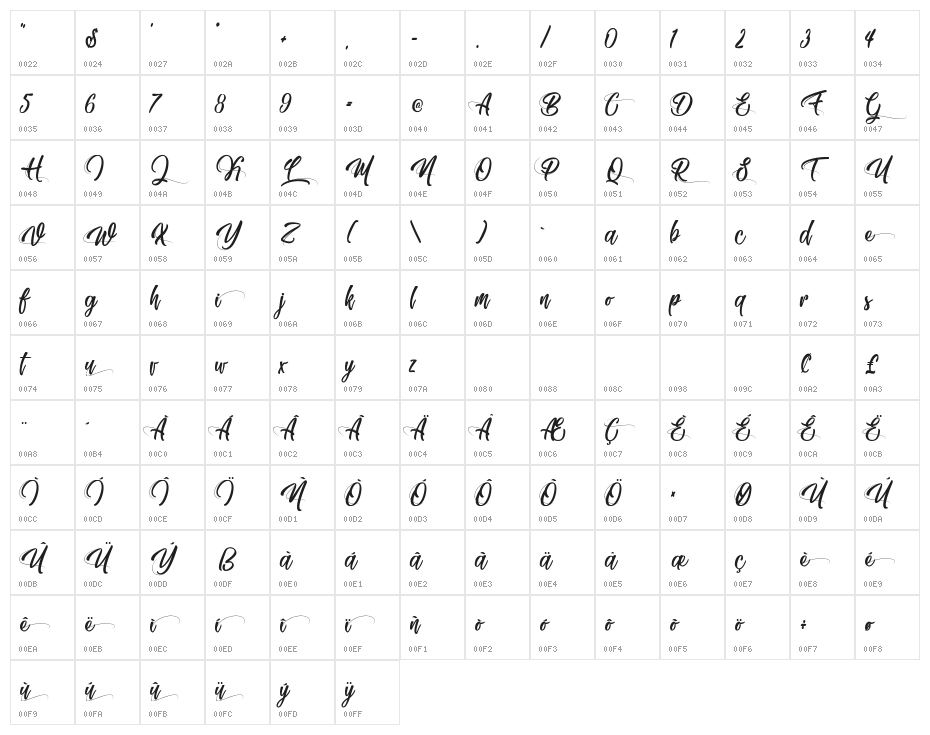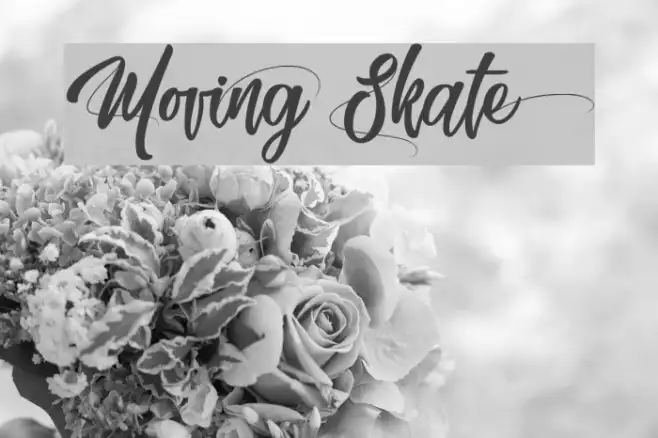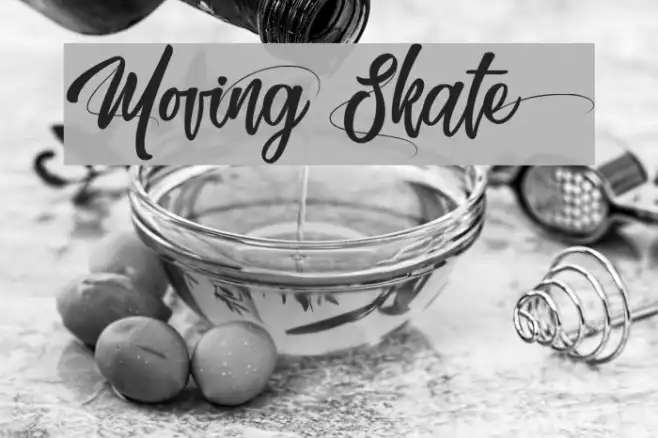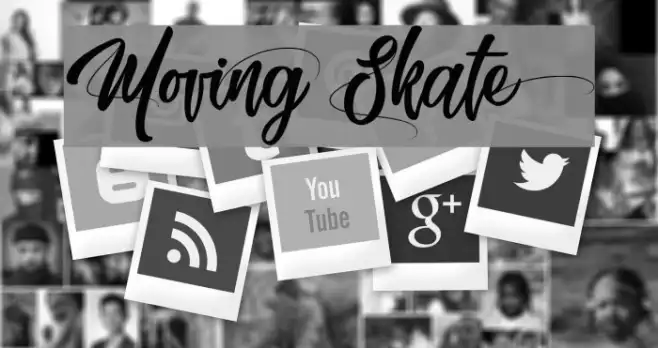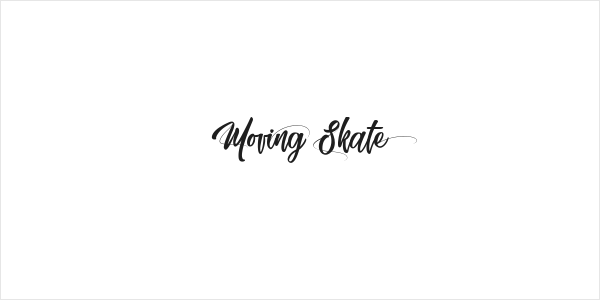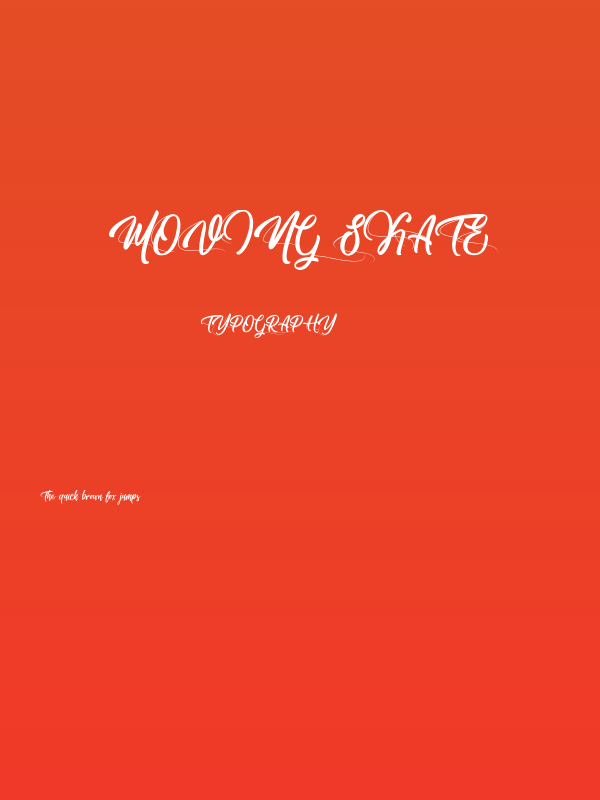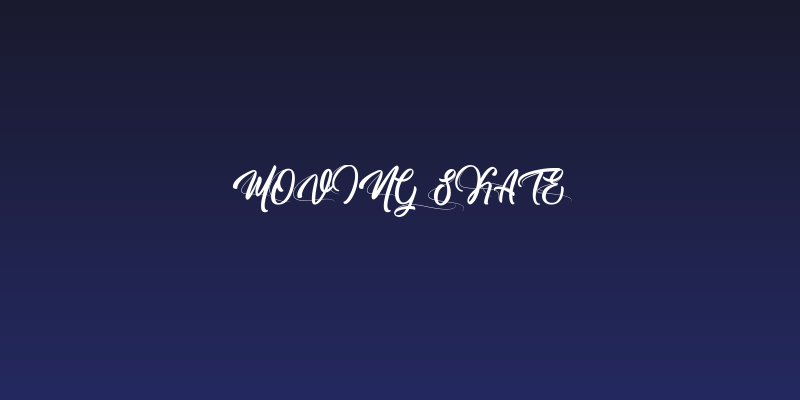
Moving Skate Font
Moving Skate Description
This font features a dynamic and flowing script style, characterized by its elegant and cursive letterforms. The uppercase letters are adorned with intricate swashes and flourishes, adding a sense of movement and sophistication. The lowercase letters maintain a consistent fluidity, with smooth connections between each character. The numerals are bold and slightly italicized, complementing the overall script aesthetic. Special characters are designed with the same attention to detail, ensuring a cohesive look across all glyphs. This font exudes a sense of elegance and creativity, making it suitable for a variety of design projects.
| Proposed Projects | Ideal for wedding invitations, branding, logos, and elegant packaging designs. |